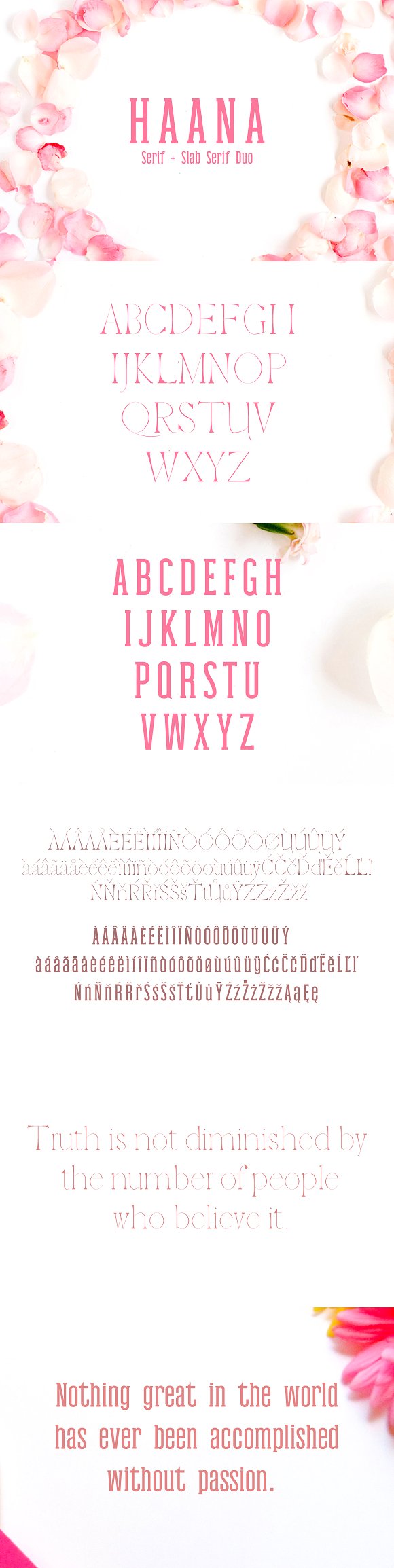
Haana Slab Serif Duo Font
Hanna Duo is a beautiful sans and slab font. It is suitable for wedding invitation, greeting cards, T-shirt, branding & logo projects, merchandise, social media posts, product packaging, or any design that you create.